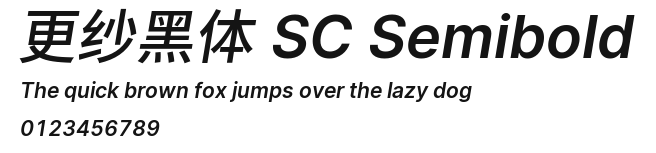
更纱黑体 SC Semibold Preview
About 更纱黑体 SC Semibold.ttf
更纱黑体 SC Semibold.ttf is a modern, elegant sans-serif font designed for ultimate readability and visual harmony. Perfect for branding, headlines, web design, and print materials.